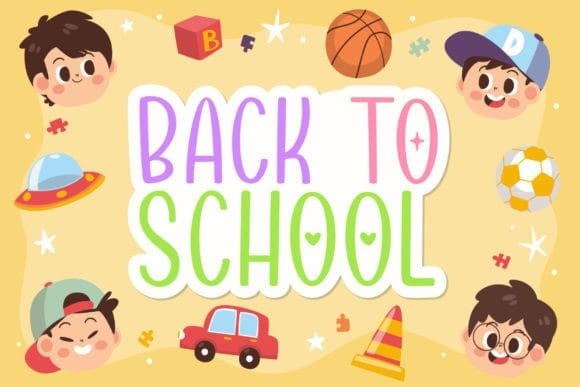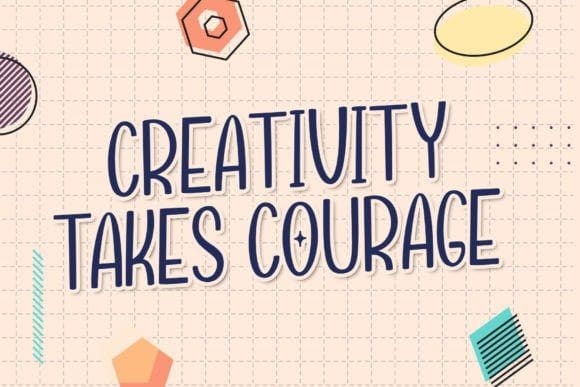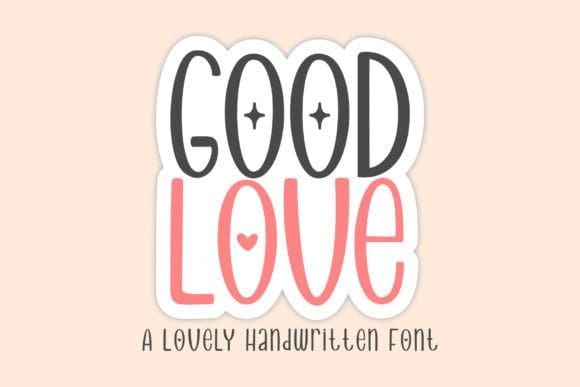
Good Love Font
Good Love Font is a handwritten font that has a simple and natural feel. Whether you want to create a sweet love letter, a heartfelt thank you card, a minimalist logo, a motivational quote, or a fun social media post, Good Love will add a touch of personality and charm to your designs.